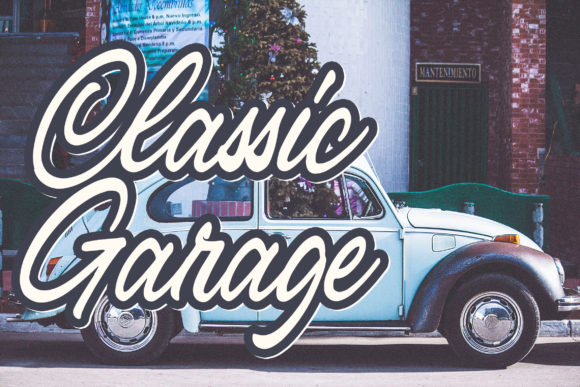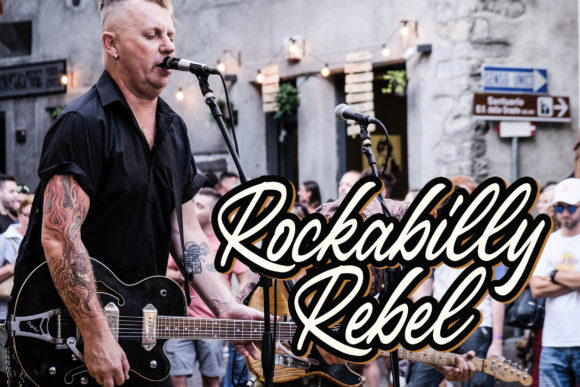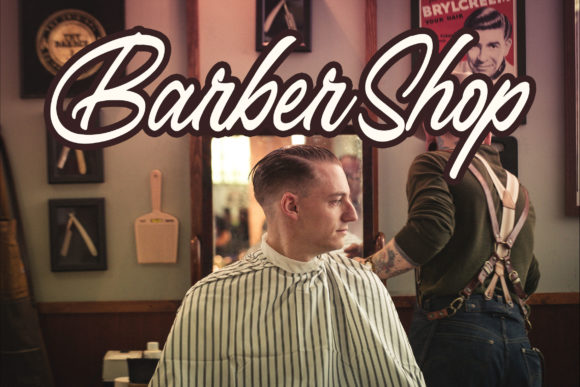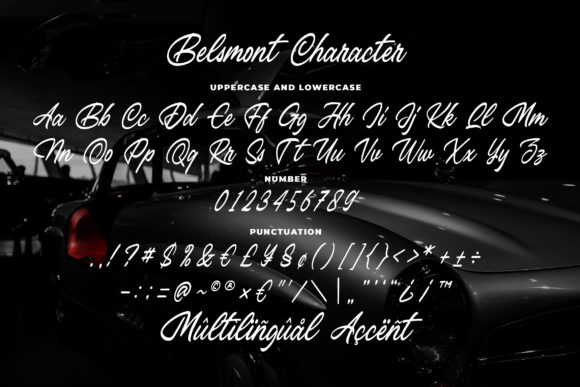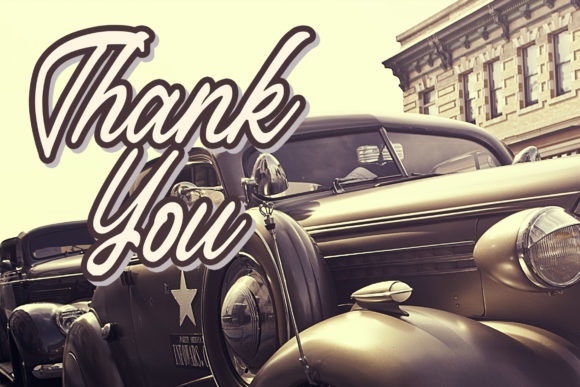
HomeScript FontsBelsmont Font Script Fonts Belsmont Font FacebookXPinterestWhatsApp Belsmont Font Poster 2 Belsmont Font Poster 3 Belsmont Font Poster 4 Belsmont Font Poster 5 Belsmont Font Poster 6 About Belsmont Font Belsmont is a stunning script with a cool feel. Get inspired by its unique style! DOWNLOAD ON CREATIVE FABRICAThis font is sold and delivered by Creative Fabrica. Font Canyon may earn a commission if you buy through this link. People also explored Nathasa Monogram Font Wheat Bread Font Ceu Gense Font Symphony Shadow Font Diamora Champion Font The North Font Yellow Perforated Duakata Font Mattoa Font 328 0 TagsBelsmont Font Previous articleKarrisha FontNext articlePevanytta Script Font LEAVE A REPLY Cancel reply Comment: Please enter your comment! Name:* Please enter your name here Email:* You have entered an incorrect email address! Please enter your email address here Website: Save my name, email, and website in this browser for the next time I comment. Personal Use Free Shnobel Personal Use Free Read more about this font Masker Area Personal Use Free Read more about this font Hanberra Personal Use Free Read more about this font Equestrain Personal Use Free Read more about this font BLOG Free vs Paid Fonts: Why Investing in Premium Fonts Is Worth It Free vs Paid Fonts: Why Premium Fonts Are Worth It in 2025 The debate of free vs paid fonts continues in the design world. While... Fonts That Capture the Spirit of New York City How to Install and Use Fonts on Windows, macOS, and Web Projects Modern Sans-Serif Fonts That Brands Love in 2025